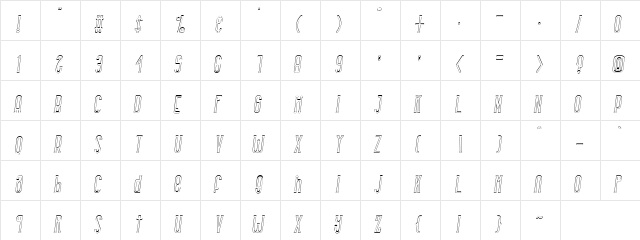
Rhantica Serif Ital Out
| Foundry | Stefie Justprince |
| Designer | Stefie Justprince |
Design Context for Rhantica Typeface
Rhantica carries the refined structure of traditional serif typography, with bracketed terminals and considered proportions that communicate credibility and craft.